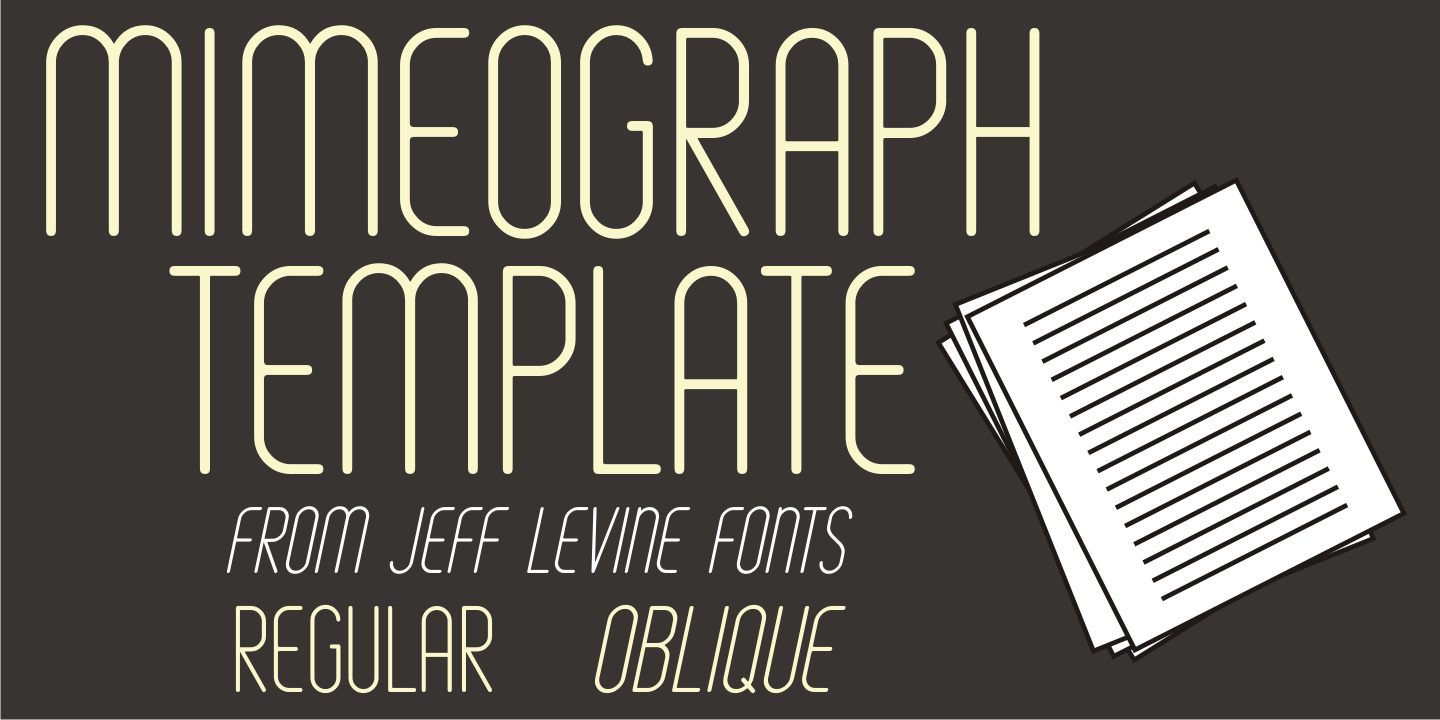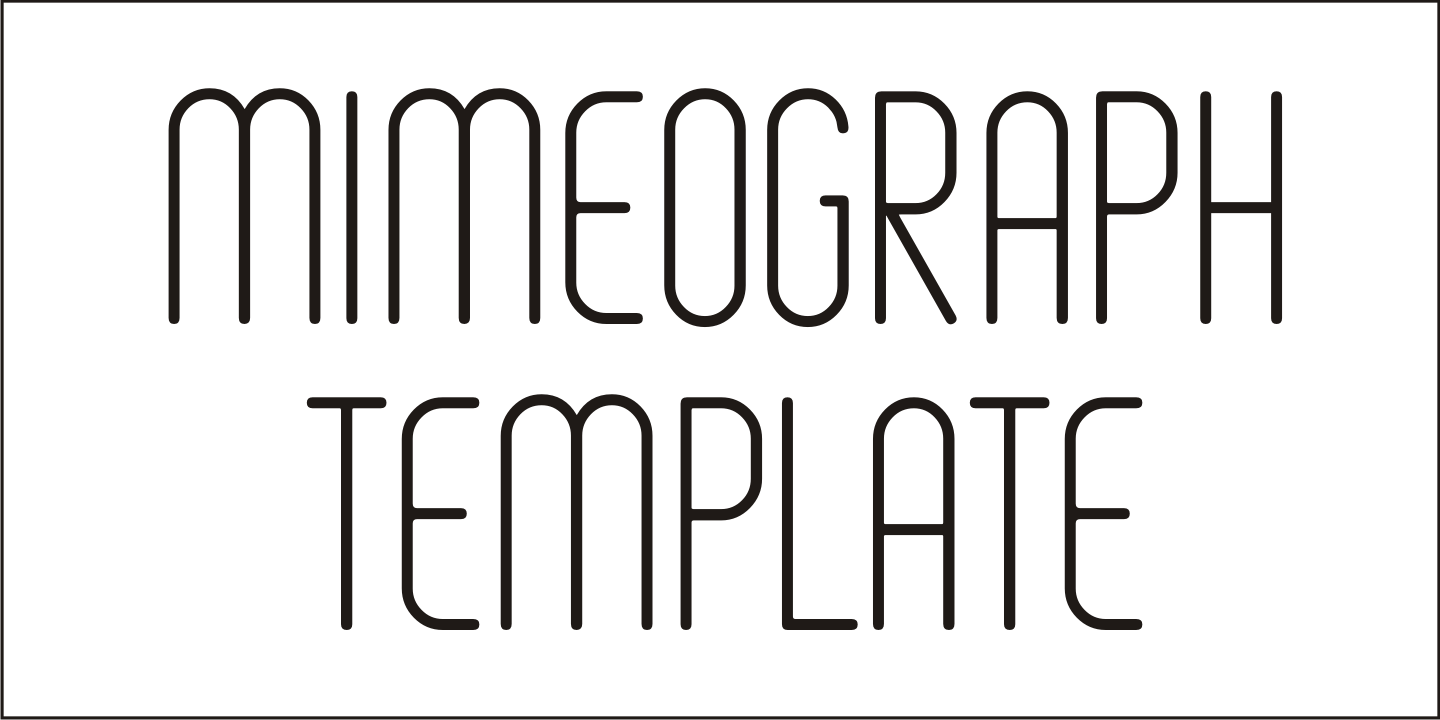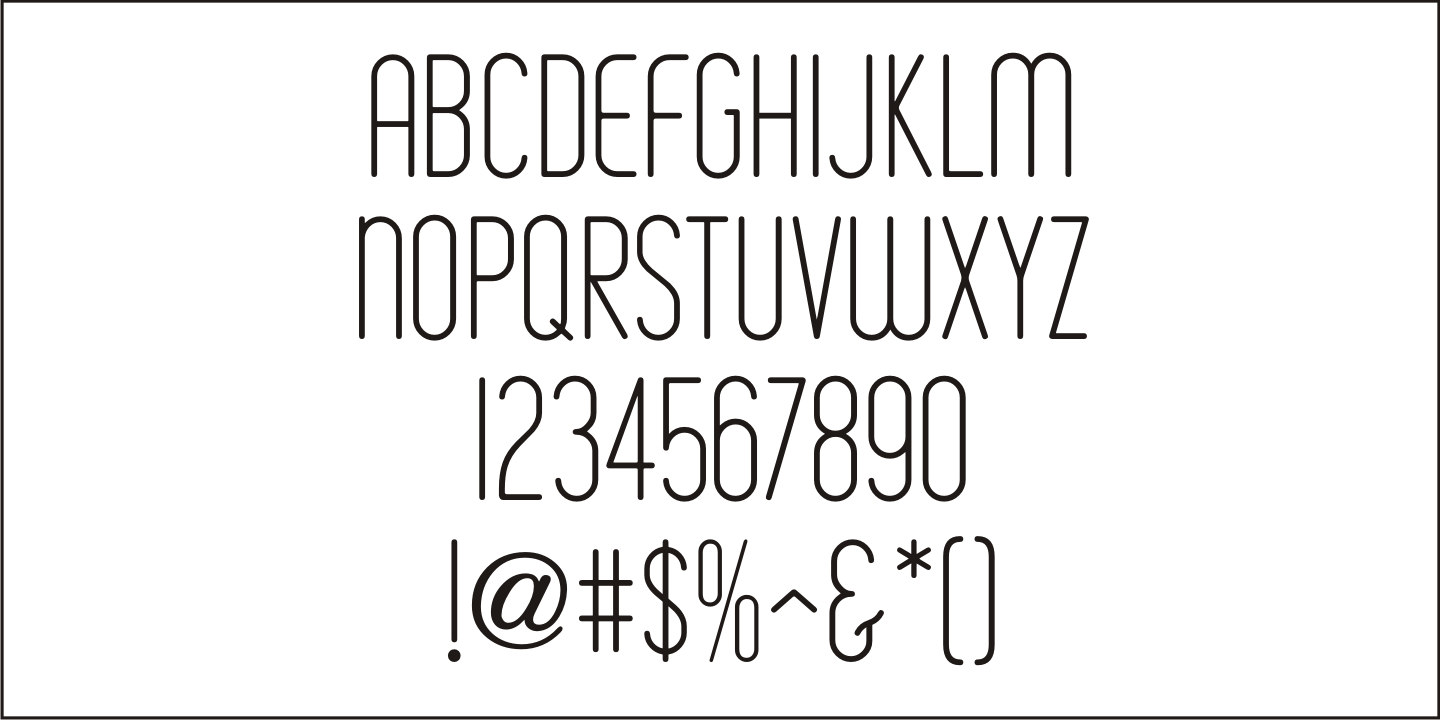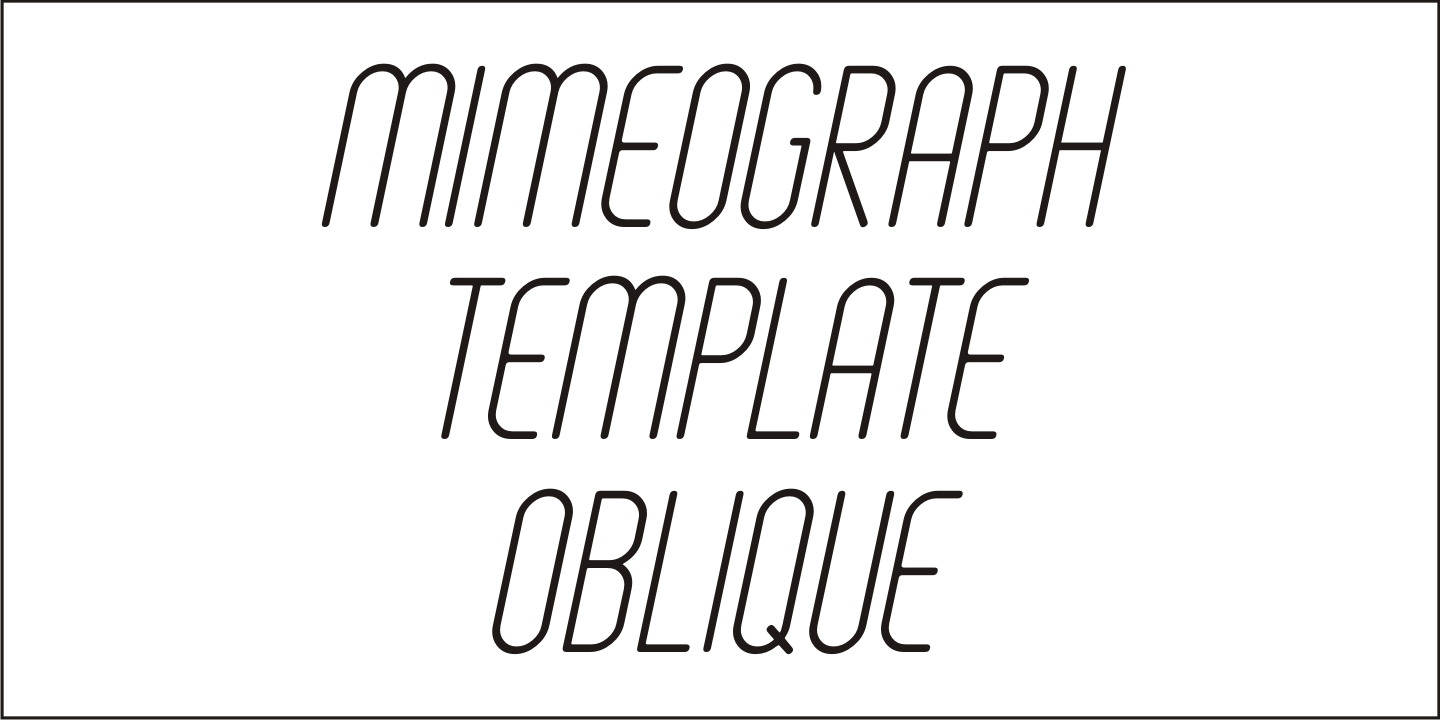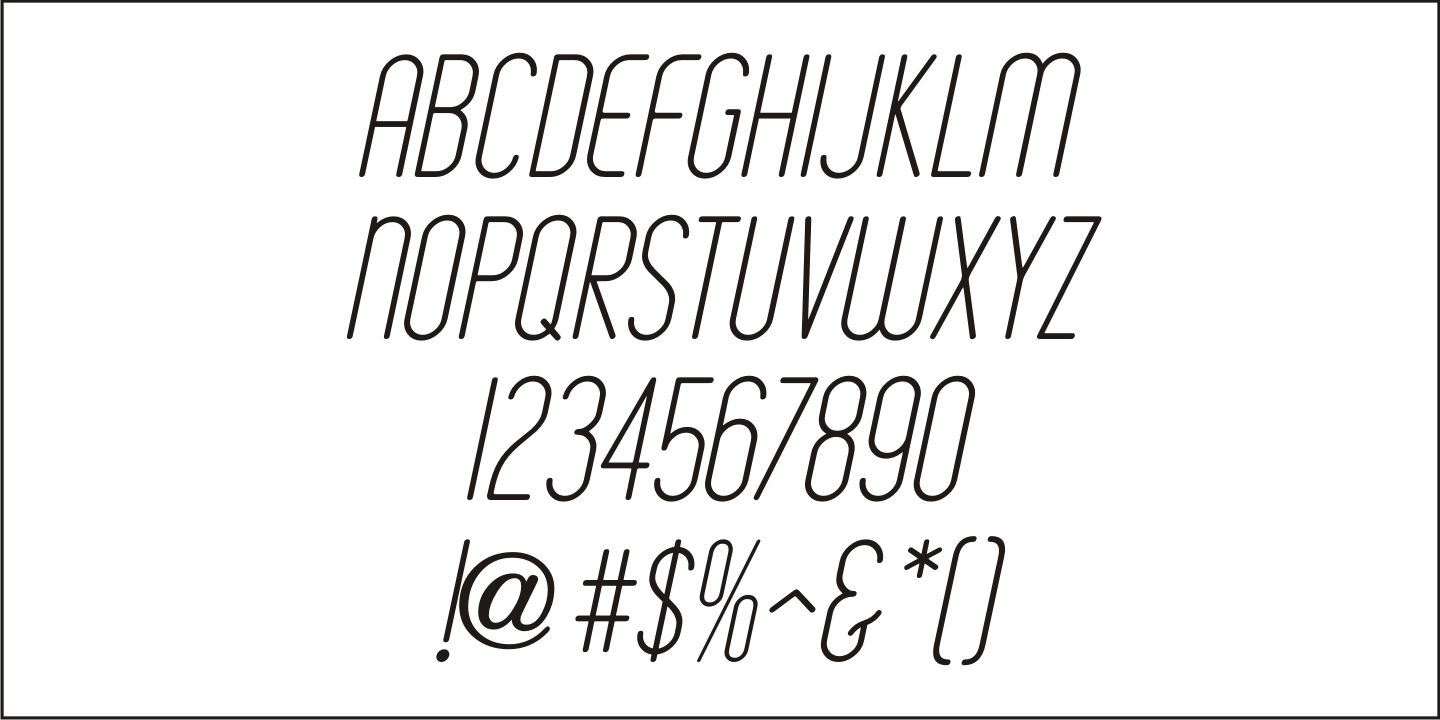
Mimeograph Template
Before ink jet and laser printers; before copy machines, the main way to make multiples of anything not provided by printing press was by a mimeograph machine or spirit duplicator.
The mimeograph utilized a porous drum which inked the backside of a waxed stencil sheet. Unlike traditional stencils which have cut out areas that are directly inked or painted, a mimeo stencil has the area to be printed scratched away by removing the wax coating with a stylus.
The resulting image allows the ink from the drum to seep through the sheet and transfer to the blank paper.
Based on a plastic lettering guide once manufactured by the A.B. Dick Company of Chicago, Mimeograph Template JNL is available in regular and oblique versions. Albert Blake Dick, the company's founder, coined the term 'mimeography'.
The font's character shapes follow the routed letters of the template, complete with rounded terminals. An earlier font release [designed with flat terminals and some alternate characters] is available as Interoffice Memo JNL.